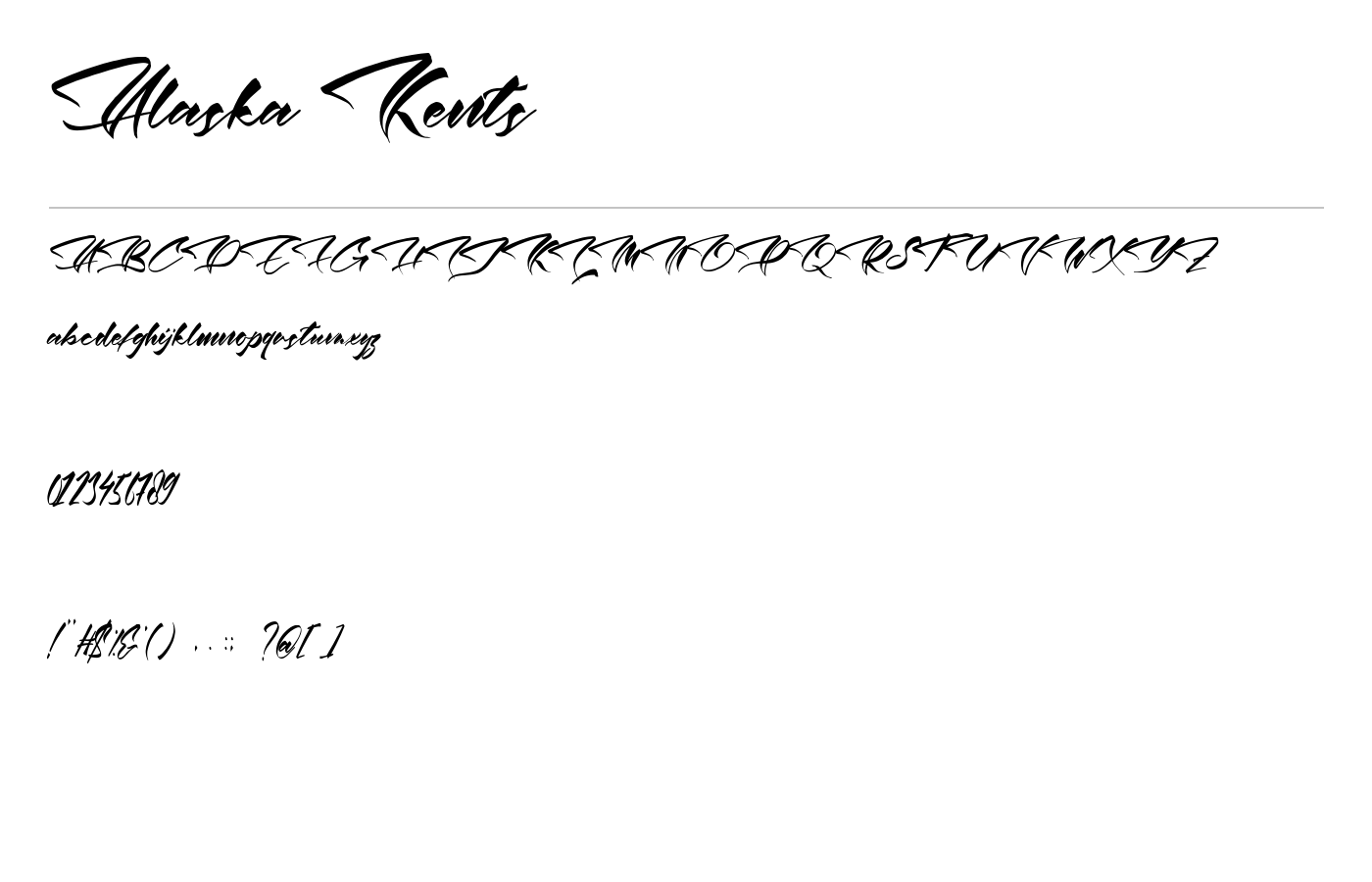
Alaska Kents is a bold and expressive script font with a dynamic, hand-brushed style that exudes energy and creativity. Its sharp, flowing strokes and elegant, slightly condensed letterforms make it ideal for eye-catching logos, fashion branding, and stylish headlines where a modern yet personal touch is desired. This font works best in designs that want to convey sophistication with an artistic flair.
Alaska Kents Font
About Alaska Kents Font